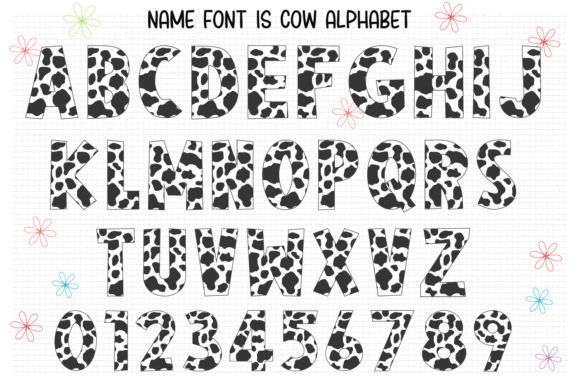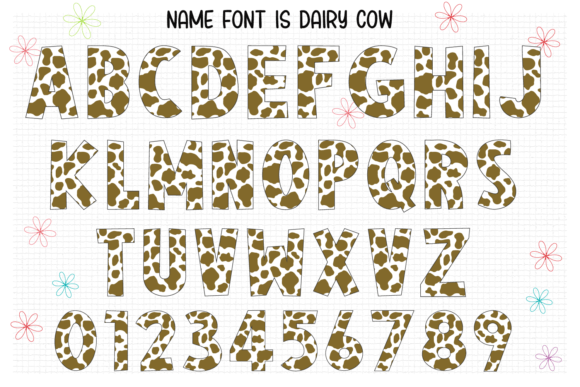
Cow Font: Add a Cute and Playful Touch to Your Designs
Are you looking for a unique and fun font to elevate your designs? Look no further than the Cow Font! This adorable font comes in two styles, offering a range of creative possibilities. In this article, we’ll explore the features and benefits of the Cow Font, and how you can use it to create stunning invitations, stationery, social media posts, and more.
What is Cow Font?
Cow Font is a one-of-a-kind font that boasts a color and pattern within the font itself. The font comes in two styles: a color version and a black version. The color version allows you to add a pop of color to your designs, while the black version provides a clean and crisp outline that can be easily customized with your preferred color. This versatility makes Cow Font perfect for a wide range of design applications.
Key Features of Cow Font
- Unique Color and Pattern: The Cow Font features a built-in color and pattern that adds an extra layer of visual interest to your designs.
- Two Style Options: Choose from a color version and a black version to suit your design needs.
Using Cow Font for Your Designs
Cow Font is perfect for designers and crafters looking to add a playful touch to their creations. Here are some ideas to get you started:
- Invitations: Create eye-catching invitations for parties, weddings, and other special occasions.
- Stationery: Add a personal touch to your stationery with Cow Font’s unique color and pattern.
- Social Media Posts: Make your social media posts stand out with Cow Font’s bold and playful design.
- Greeting Cards: Create adorable greeting cards for birthdays, holidays, and other celebrations.
- Experiment with Colors: Try out different color combinations to find the perfect look for your design.
- Mix and Match: Combine Cow Font with other fonts and design elements to create a unique look.
Color Version vs. Black Version: What’s the Difference?